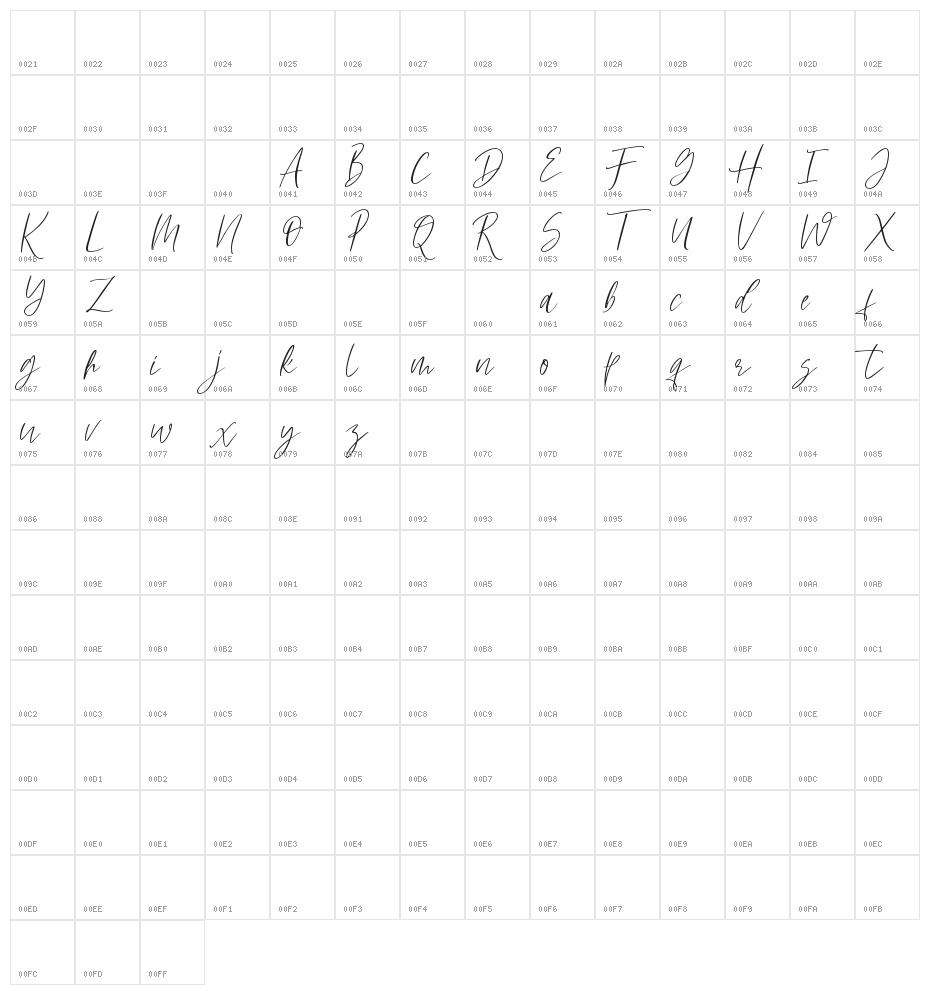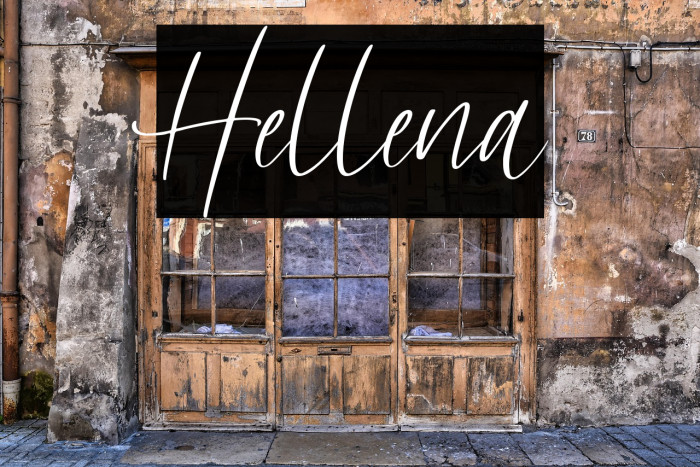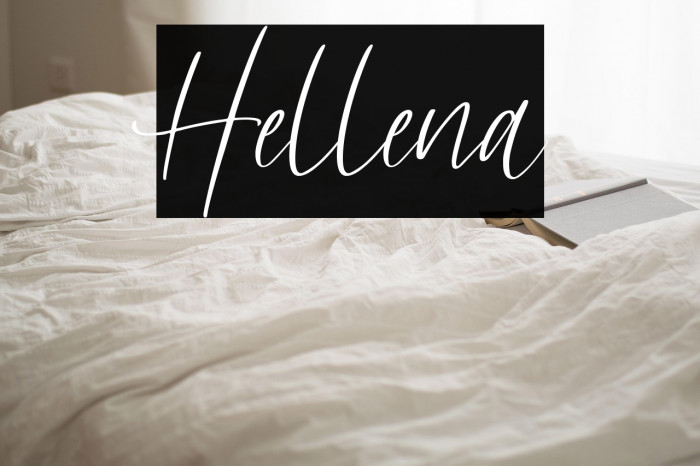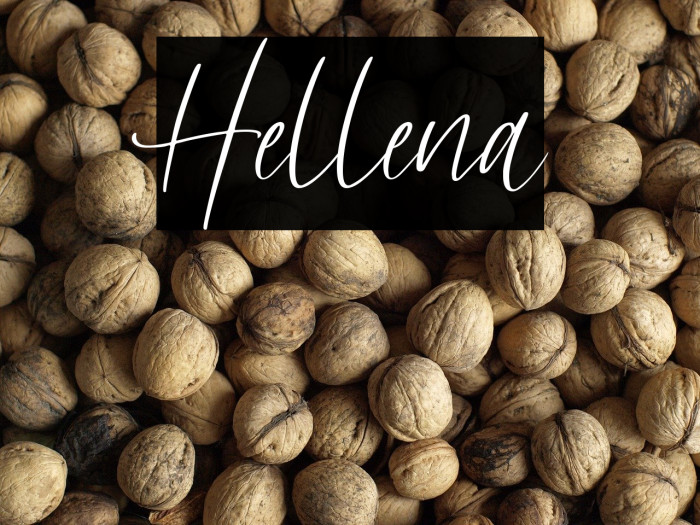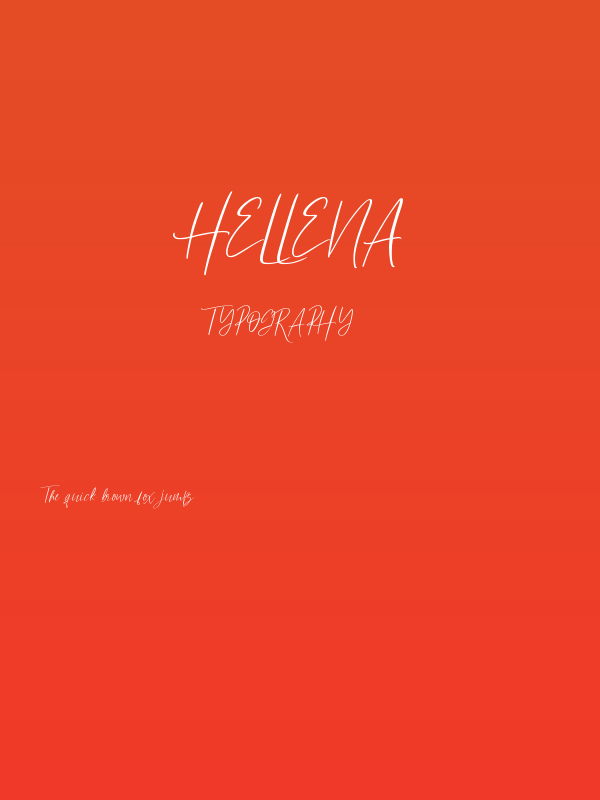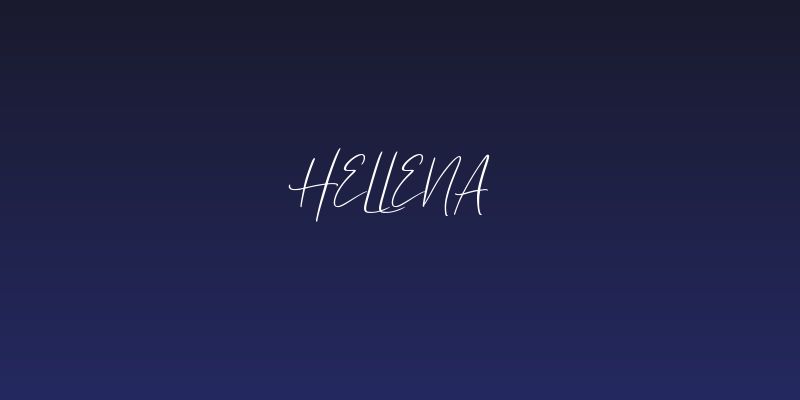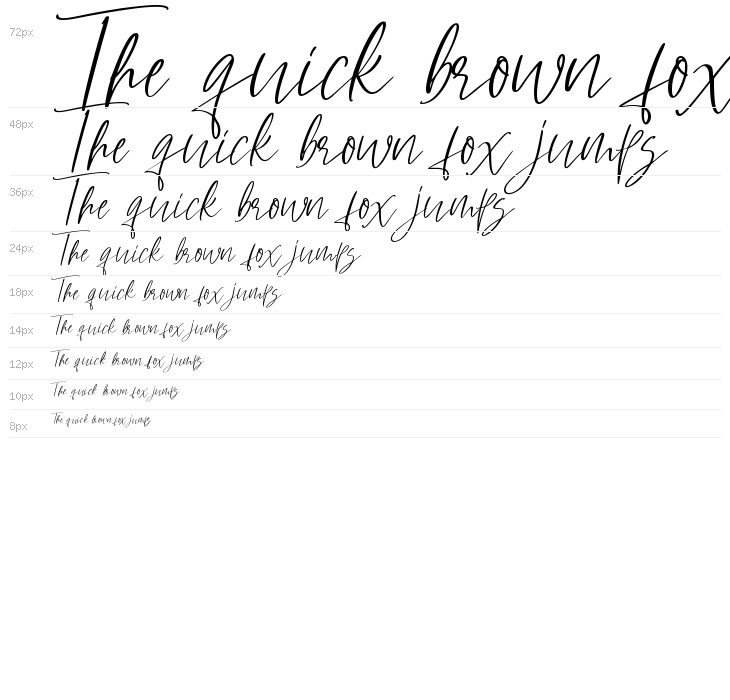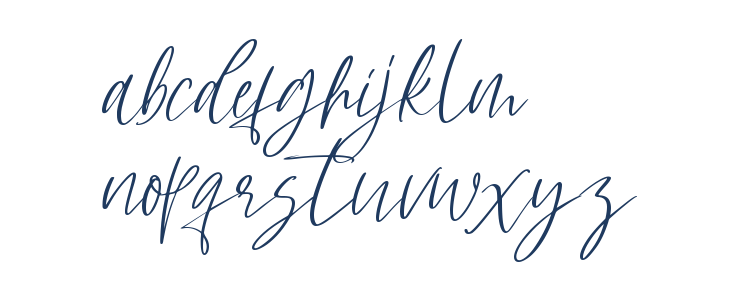
Hellena Font
Hellena Description
This font features a flowing, cursive style that mimics elegant handwriting. The characters are connected with smooth, sweeping lines, giving it a fluid and dynamic appearance. The uppercase letters are tall and slightly slanted, while the lowercase letters maintain a consistent rhythm with a playful touch. The strokes vary in thickness, adding a sense of movement and grace. This font exudes a personal and artistic flair, making it suitable for creative and expressive projects.
| Overall Style | Elegant |
| Use Case | Logos, Invitations, Artistic projects |
| Proposed Projects | Ideal for wedding invitations, greeting cards, personal branding, and artistic projects. |